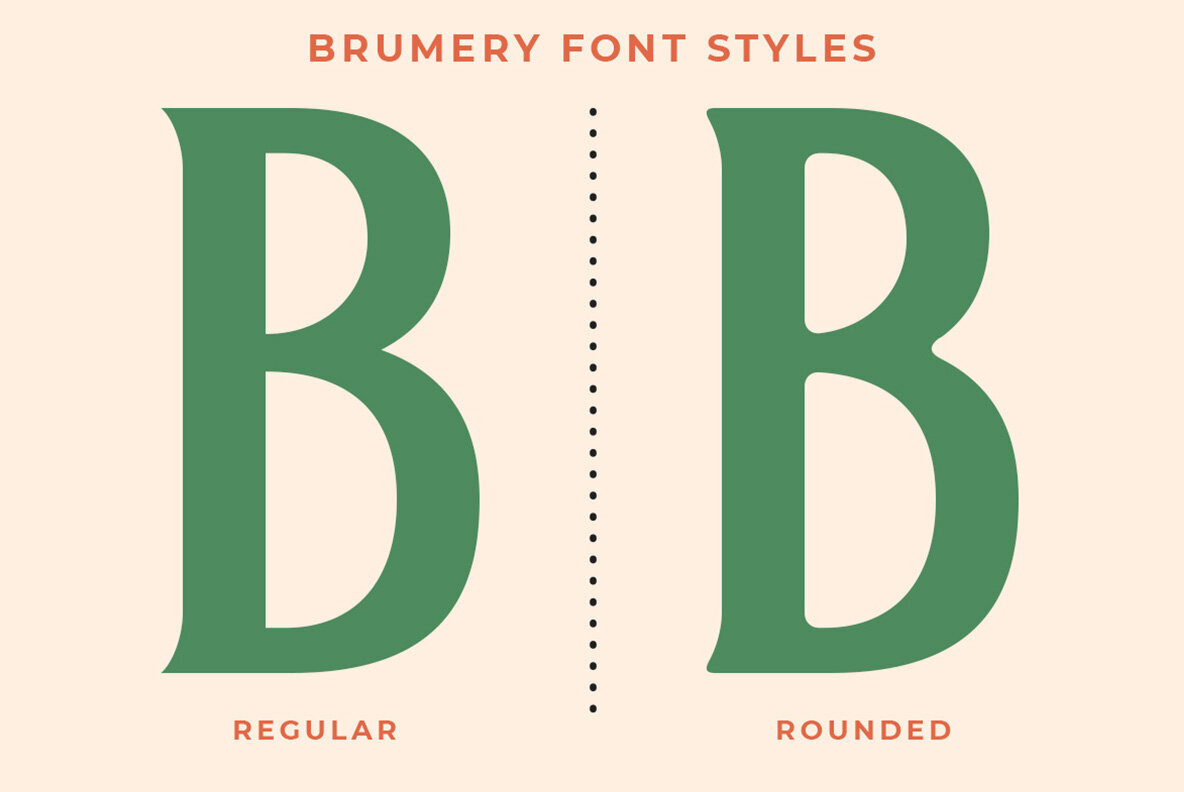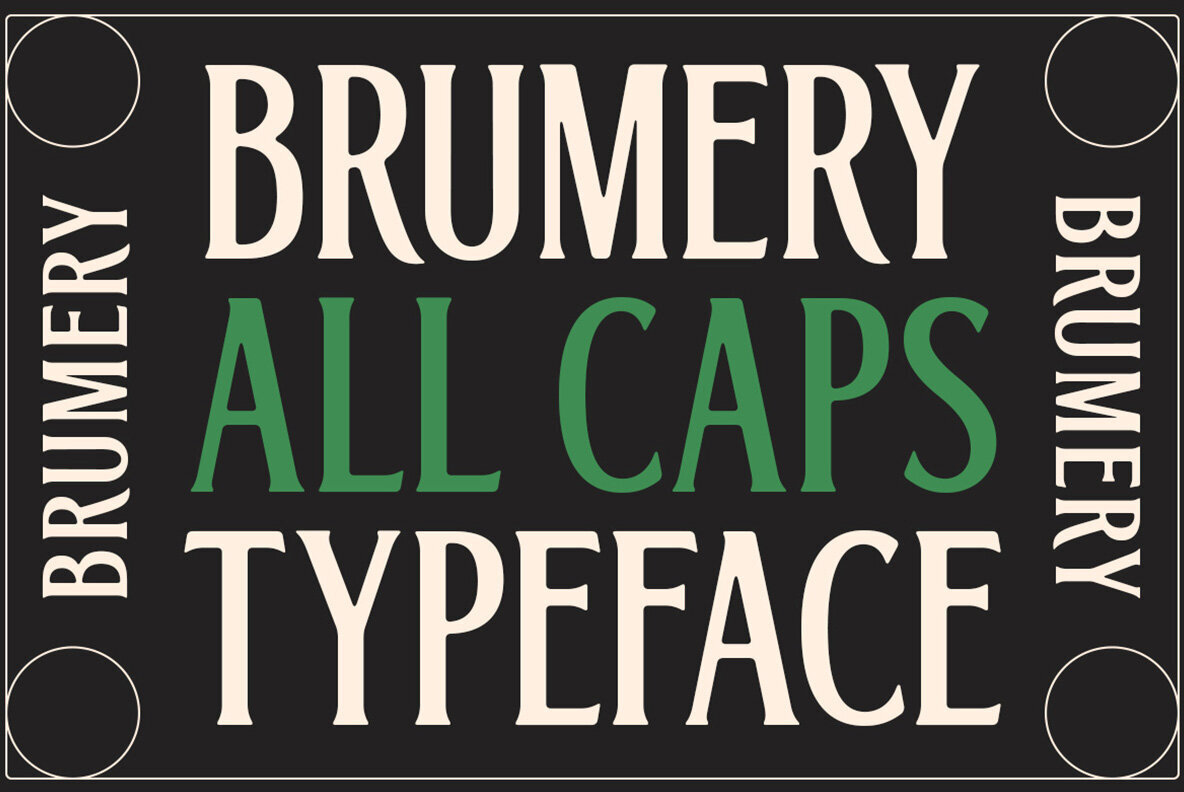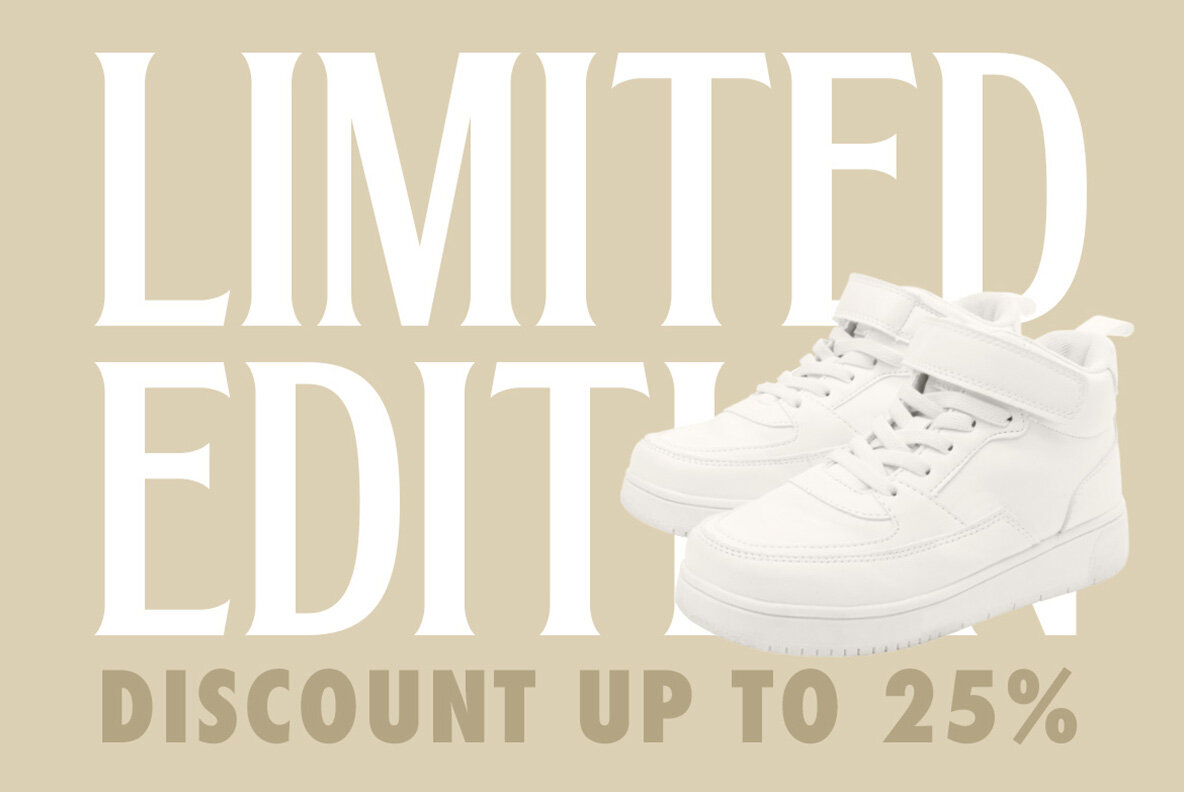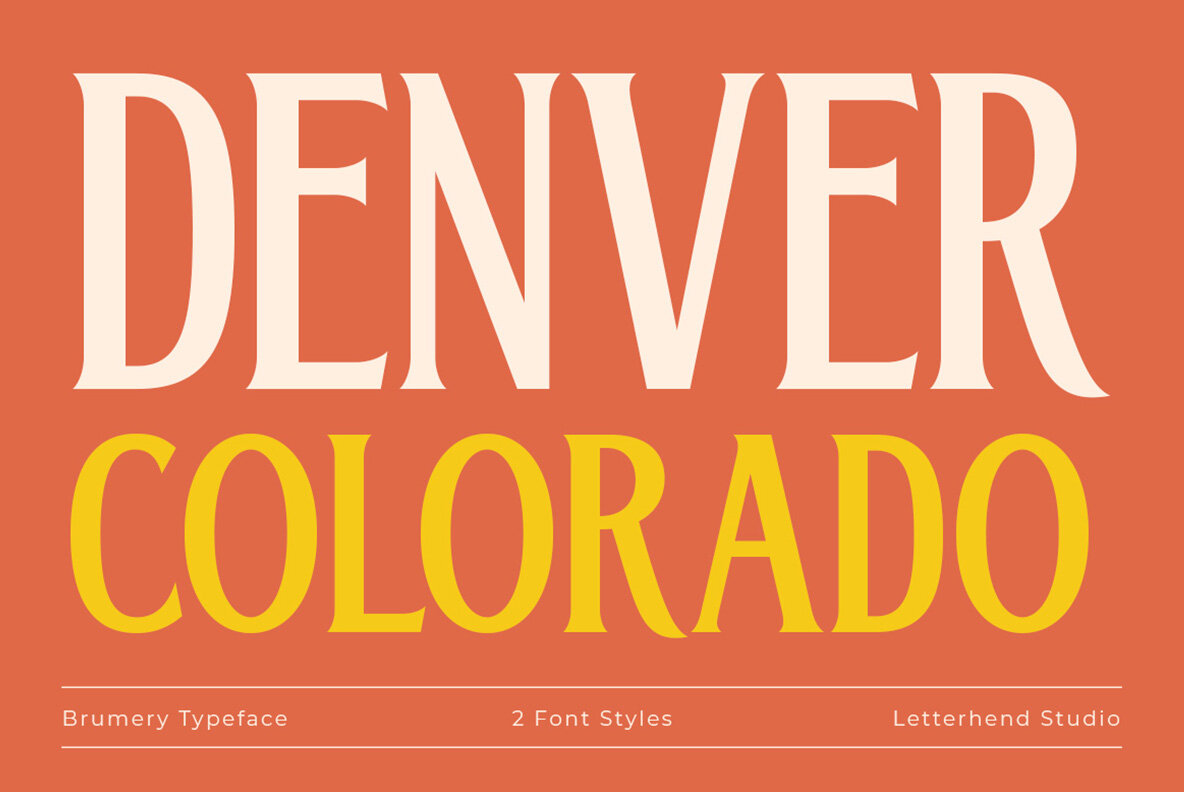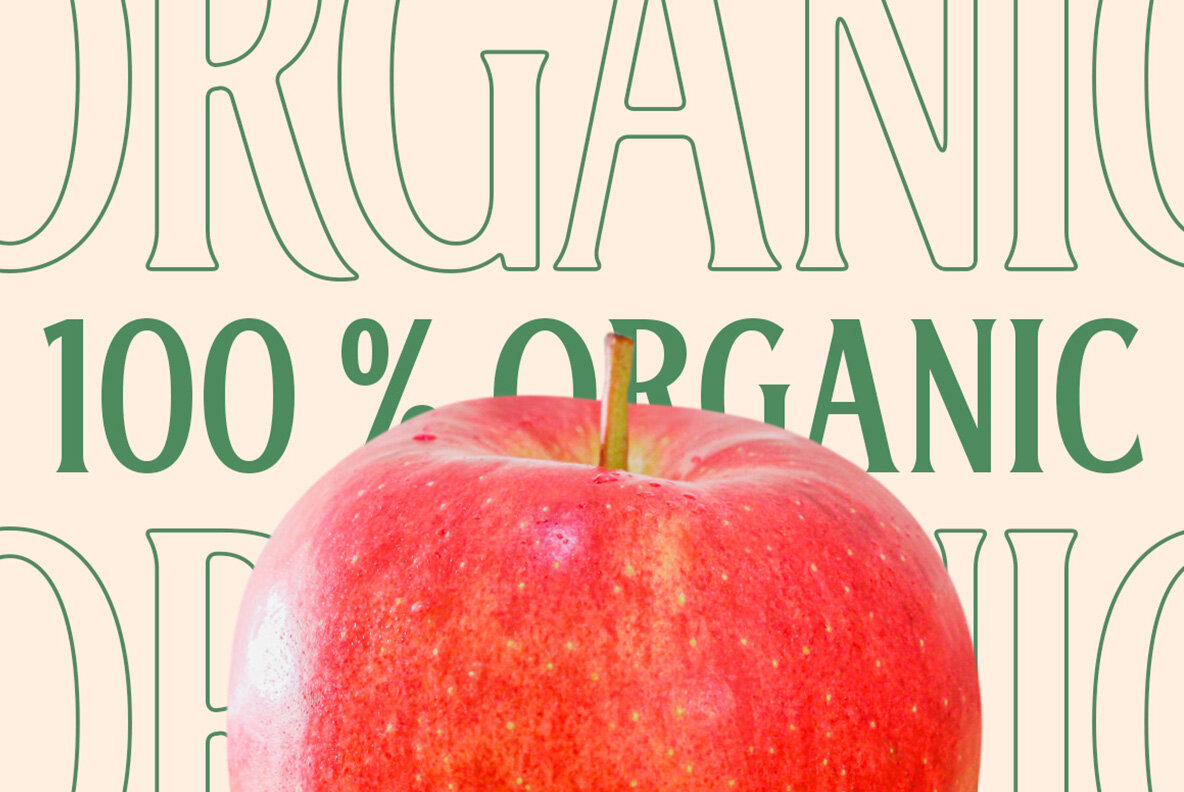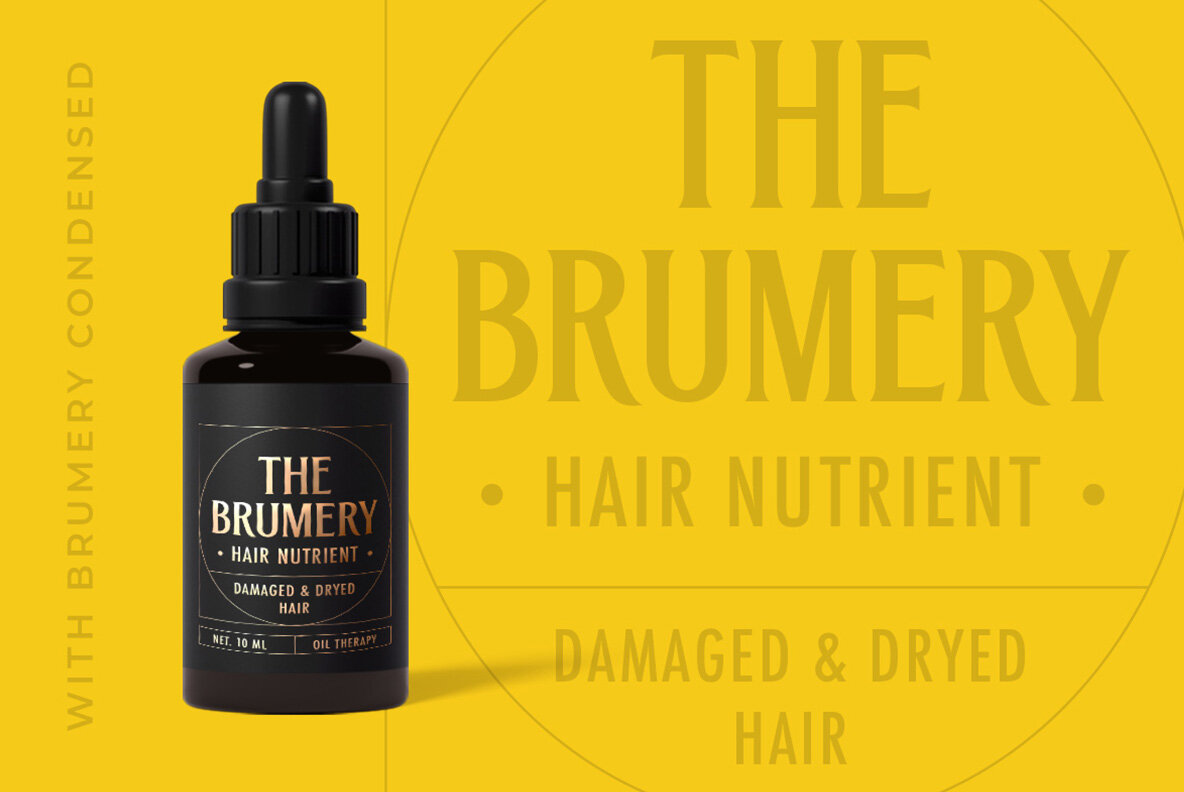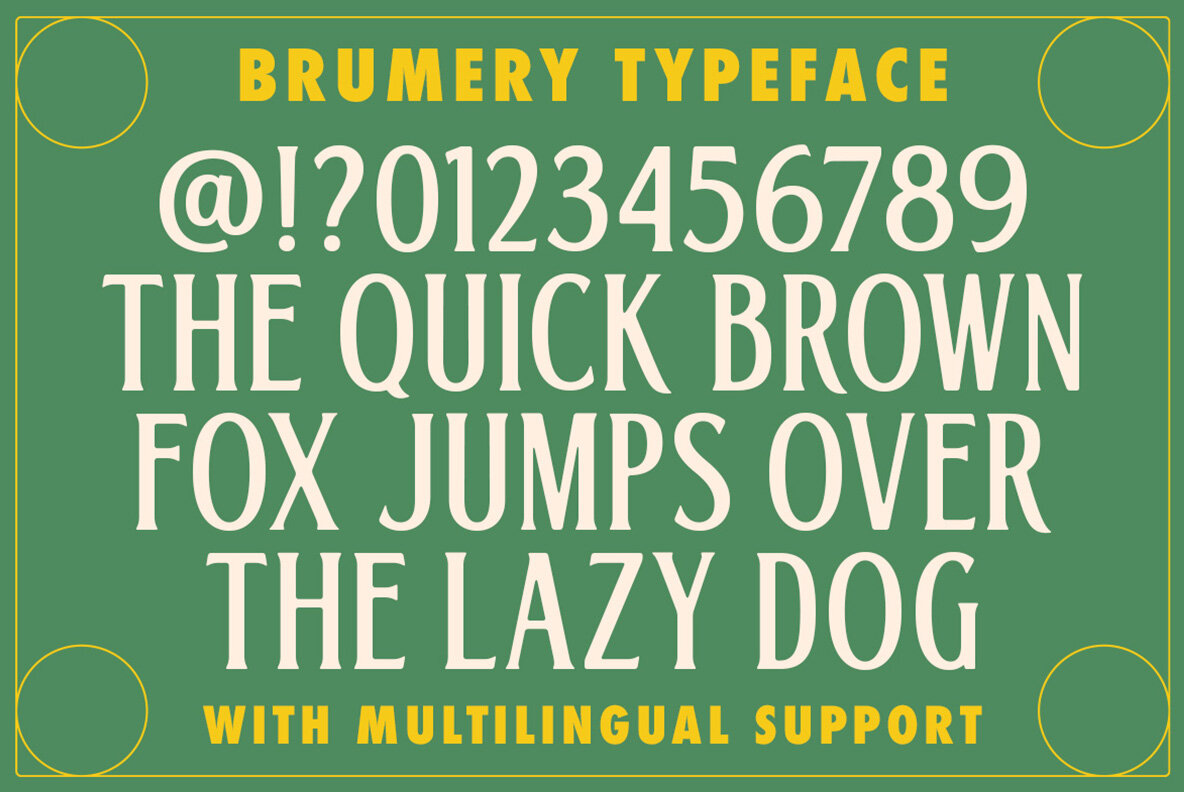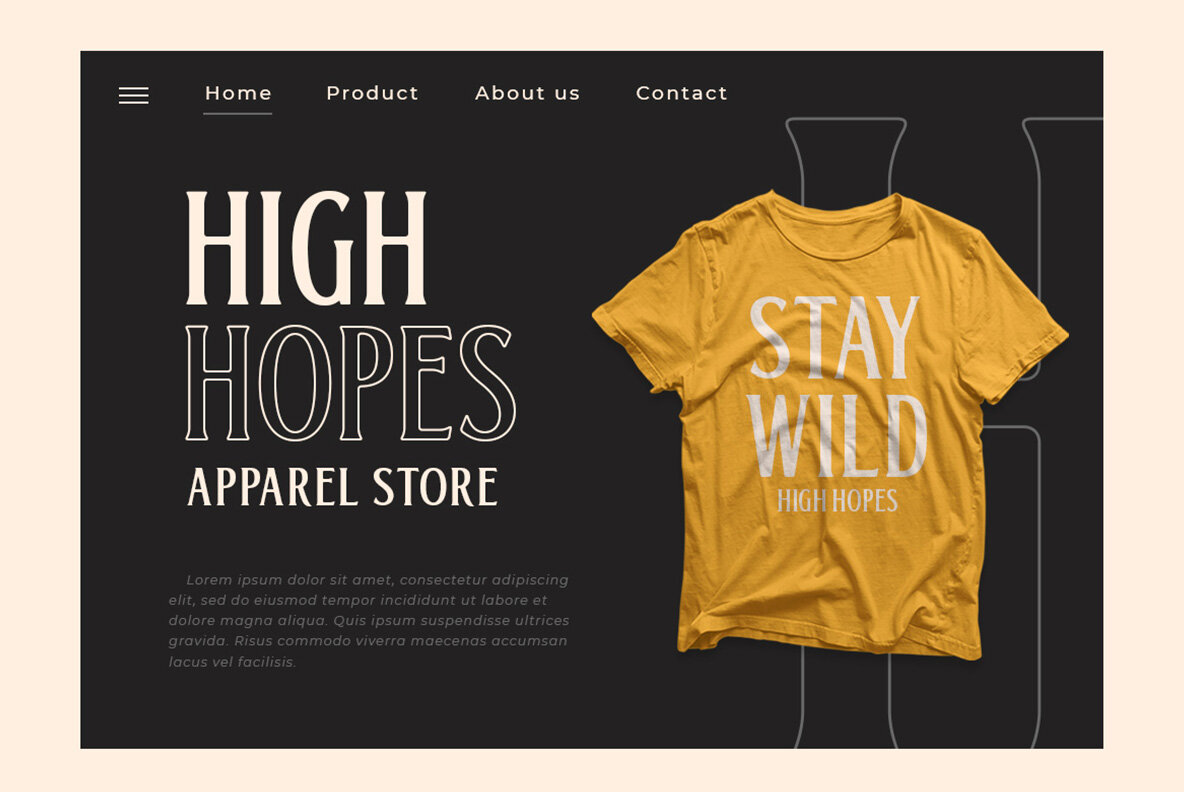
Brumery Font
Brumery Condensed is a sleek condensed font. Perfect to be applied to the other various formal forms such as invitations, labels, logos, magazines, books, greeting / wedding cards, packaging, fashion, make up, stationery, novels, labels or any type of advertising purpose.